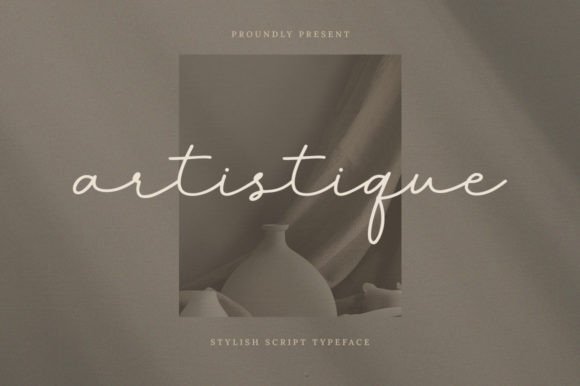
Introducing Artistique, the captivating script font family that will transform your creative expressions into exquisite works of art. Its intricate curves and natural flow emulate the elegance and charm of handwritten signatures, adding a personal touch to your designs. Whether you're a designer, a blogger, or a creative professional, Artistique will elevate your projects to new heights of sophistication.
Immerse yourself in the beauty of Artistique's versatile letterforms, meticulously crafted to offer endless possibilities for customization. From ethereal branding and alluring labels to elegant watermarks and captivating photography, Artistique seamlessly adapts to various creative endeavors. Let your imagination soar as you explore the limitless potential of this font family.
Unleash the romance and charm of Artistique in your wedding invitations, stationery, and social media posts. Its graceful strokes will capture the essence of love and joy, leaving a lasting impression on your cherished moments. Artistique is the perfect companion for capturing life's special occasions with timeless elegance.
Elevate your advertising campaigns and product designs with the distinctive allure of Artistique. Its refined style exudes professionalism and sophistication, creating a lasting impact on your target audience. Watch as your brand stands out from the crowd, attracting attention and leaving a remarkable impression.
With Artistique, every signature you create becomes a masterpiece. Its fluid lines and elegant curves add a touch of personal flair to your documents, adding a unique charm that reflects your individuality. Let your signature speak volumes about your creativity and style.